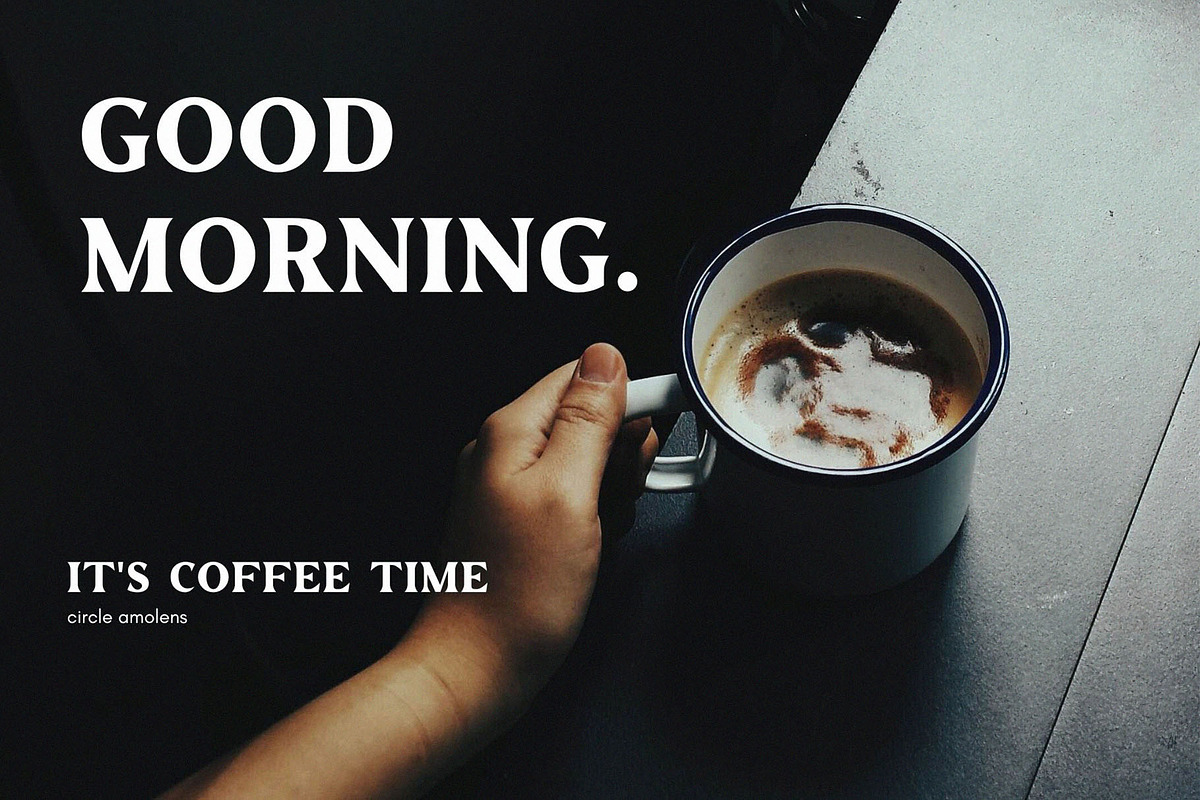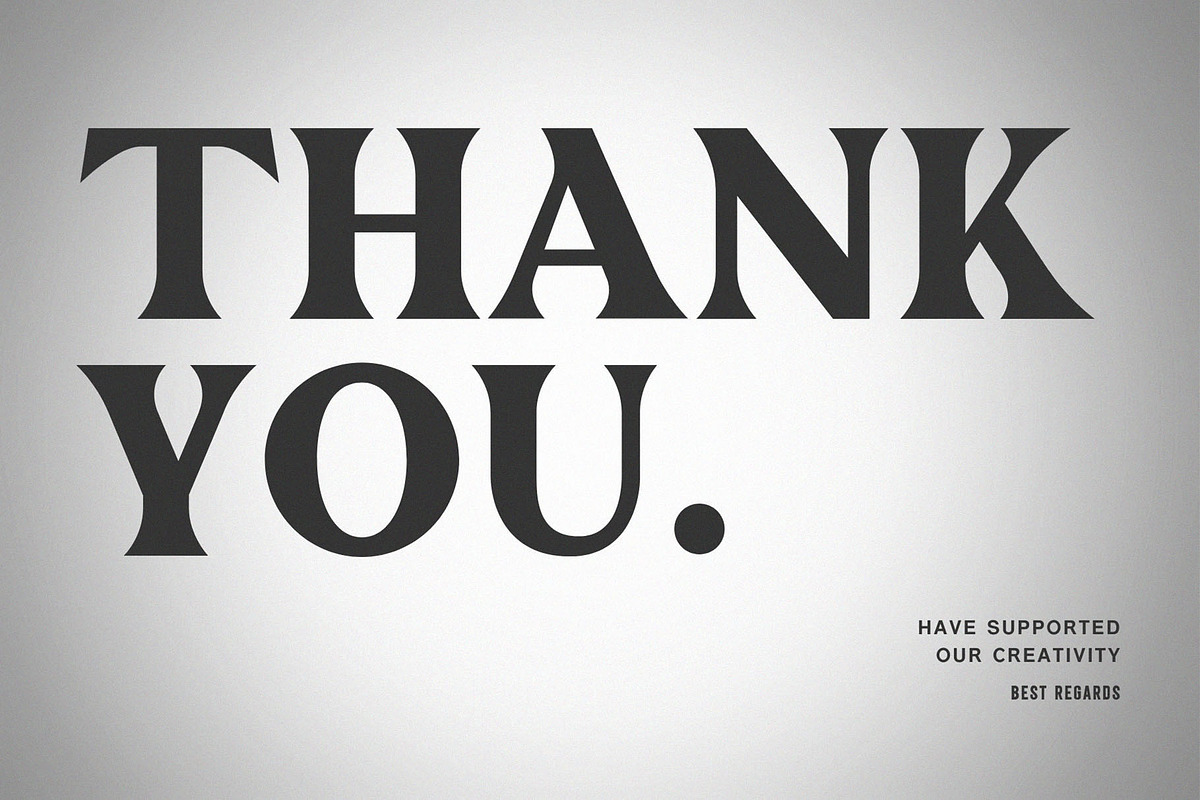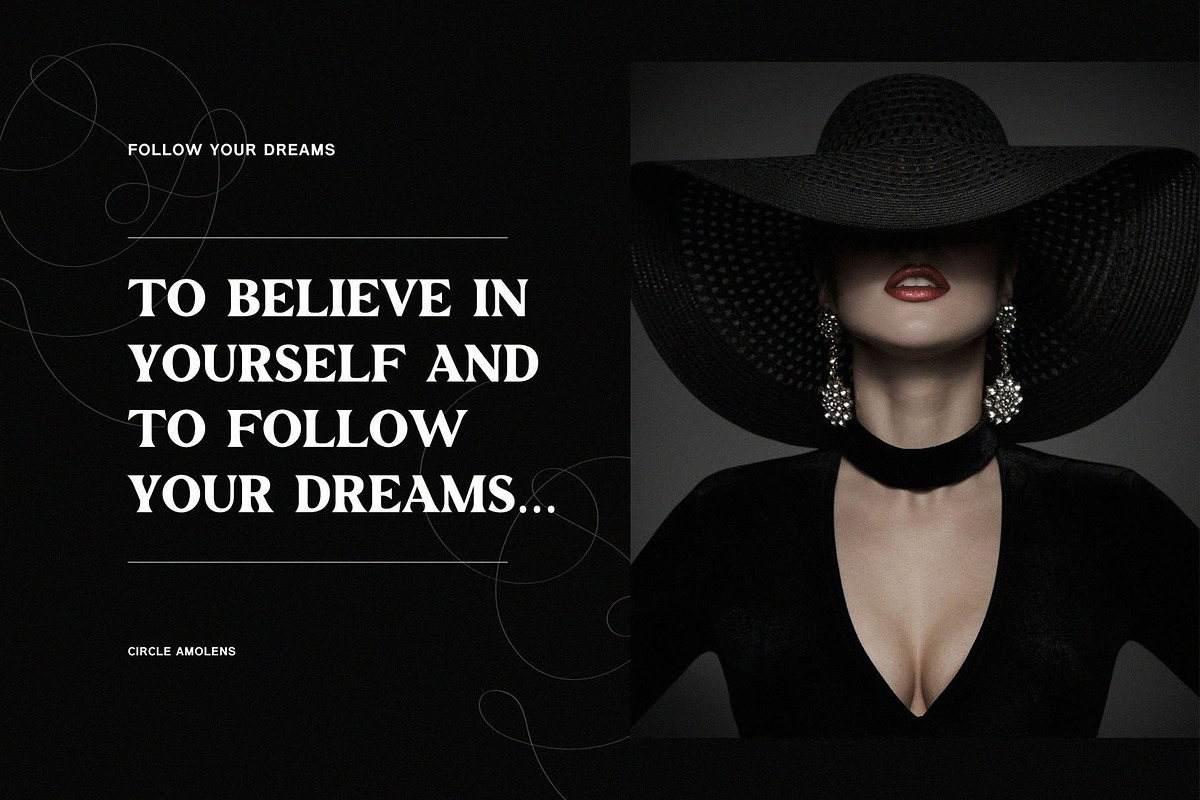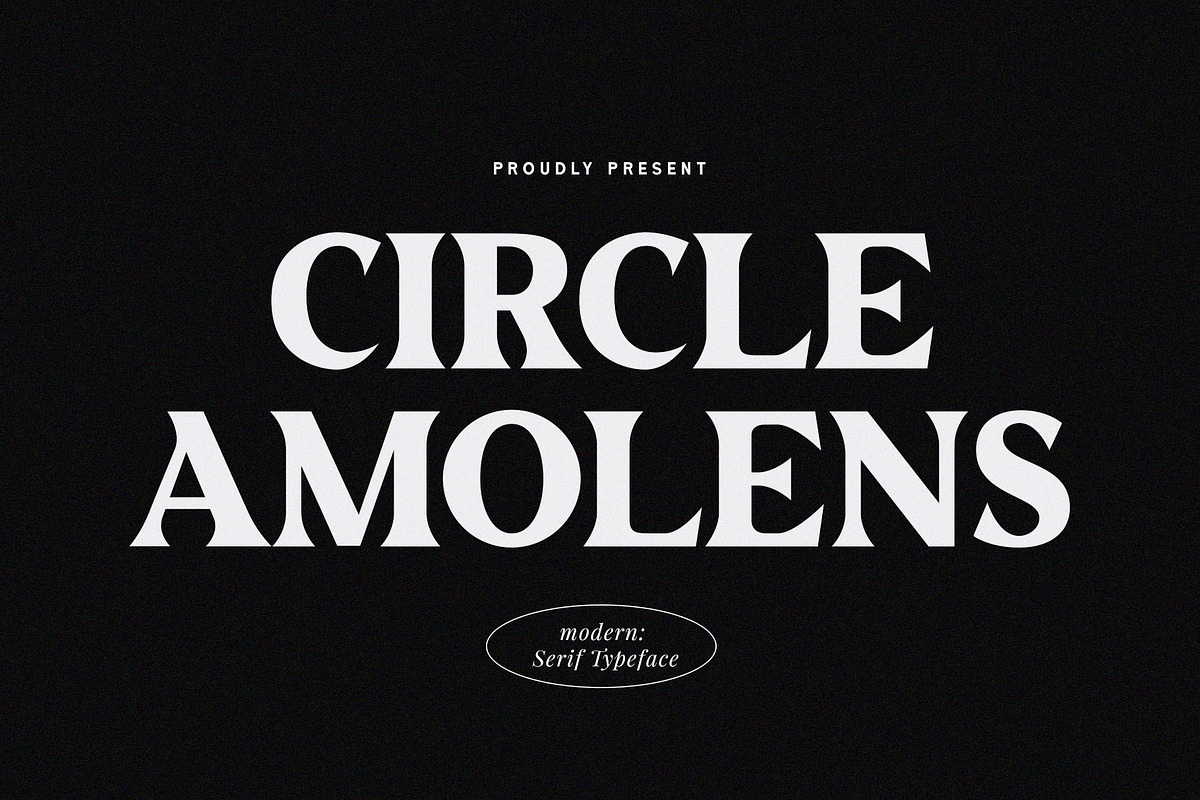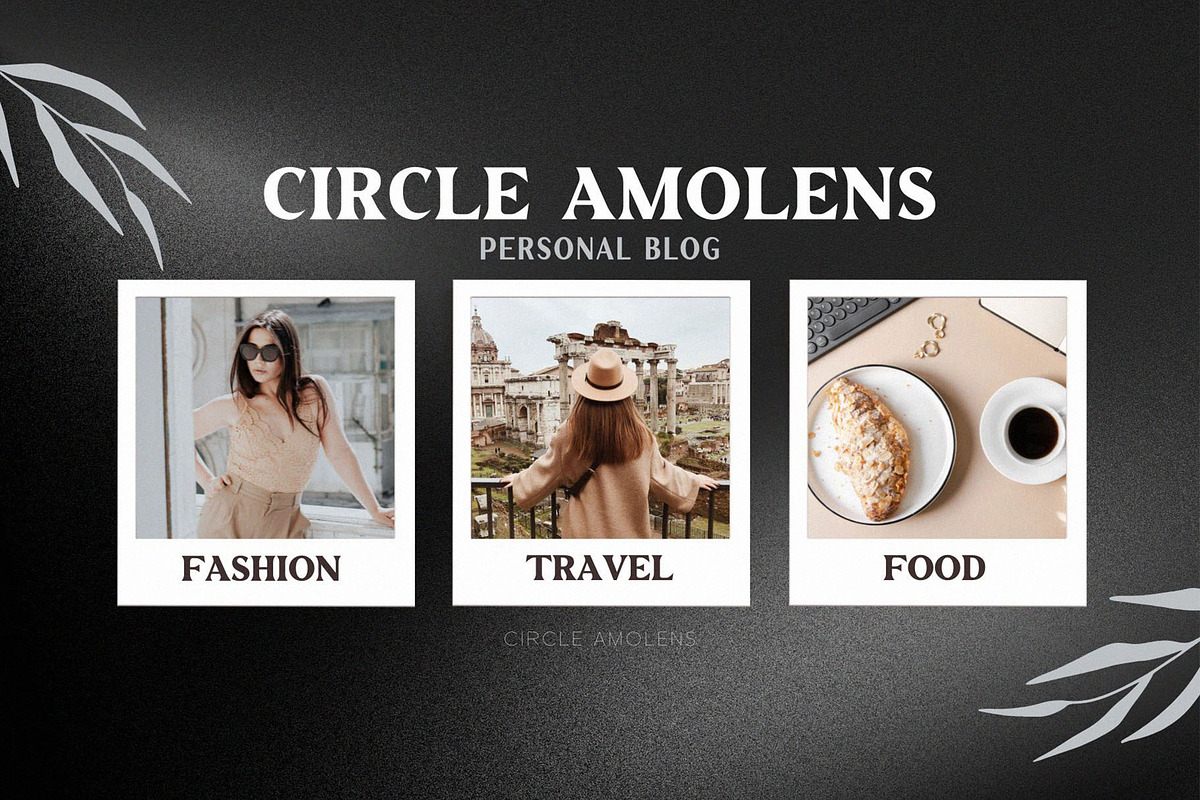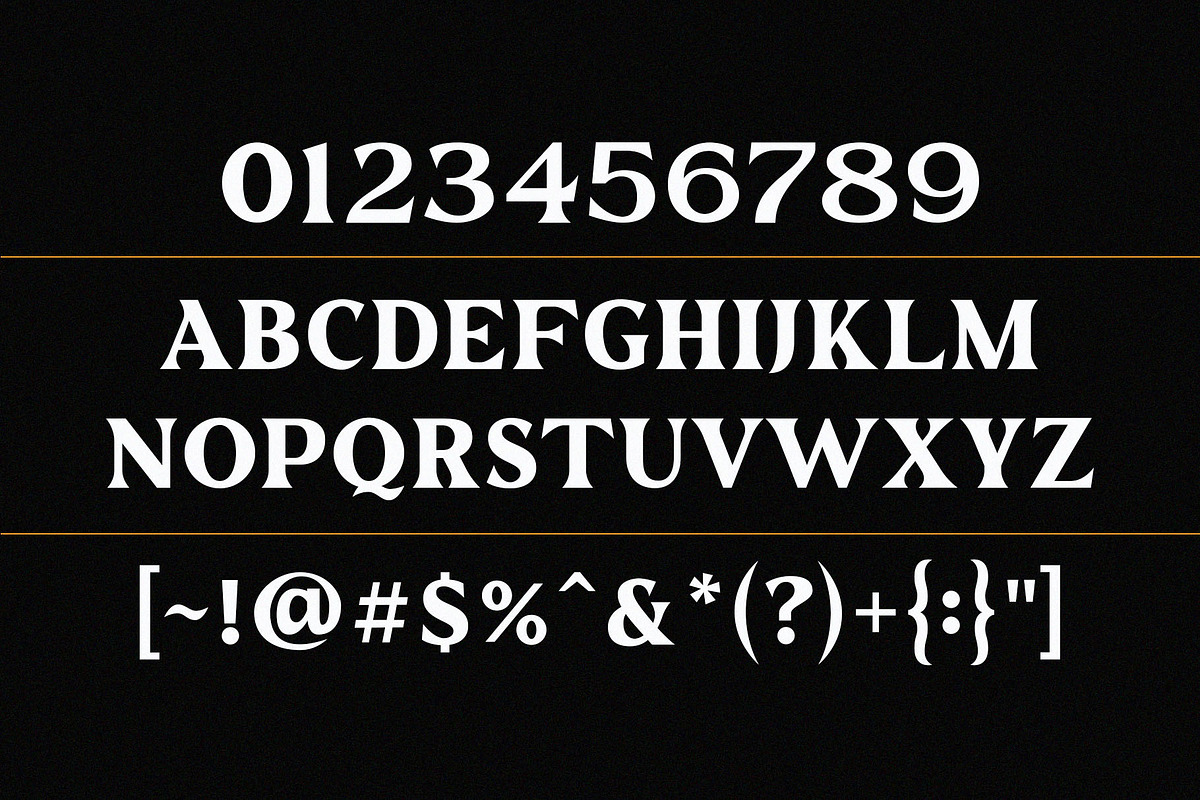
Circle Amolens -Modern Serif
Introducing 'Circle Amolens' Font:
Circle Amolens is a sophisticated serif font featuring clean and elegant lettering, making it ideal for modern and aesthetically pleasing writing needs. Utilize this font for a wide range of applications, including logos, social media graphics, flyers, web design, business cards, invitations, and much more! Elevate your designs with the timeless charm and versatility of Circle Amolens.
Ideal for:
- aesthetically Designs
- Beauty and Fashion
- Elegant Creations
- Web Designs
- Social Media Designs
- Ready for Creative Expression
- Immaculately Crafted Letters